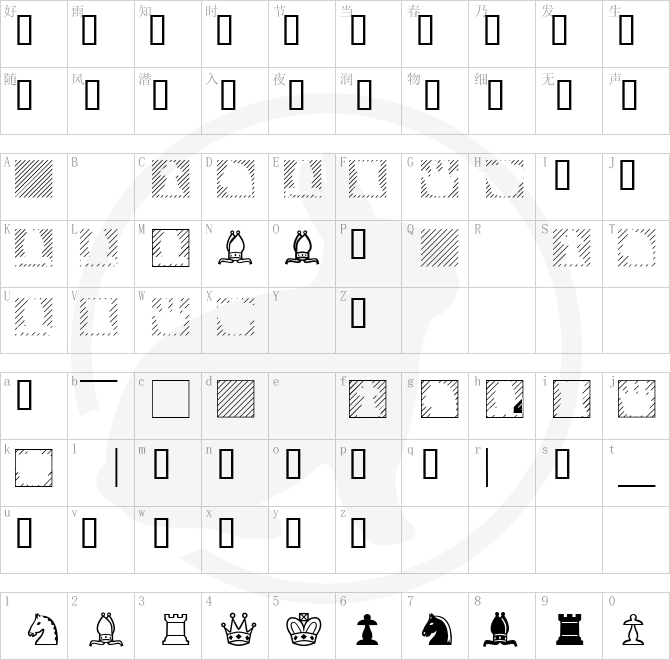
XBobsStandardChess.ttf is a very beautiful artistic font, XBobsStandardChess.ttf is widely used in the design and printing of various books and pictures,XBobsStandardChess.ttf has a strong visual impact,XBobsStandardChess.ttf is a commonly used font in newspapers, magazines and books, and is used in posters, e-commerce Poster design, store design, logo design, font design and other fields.XBobsStandardChess.